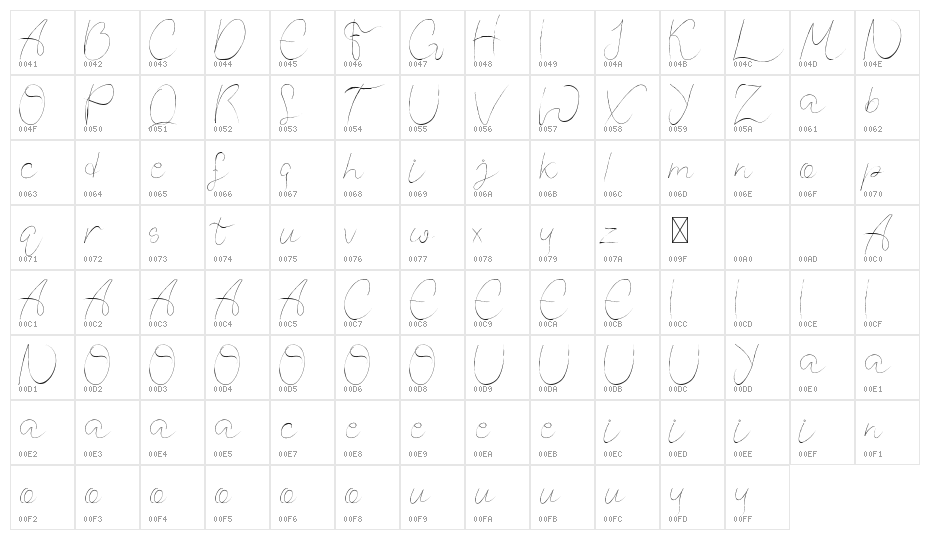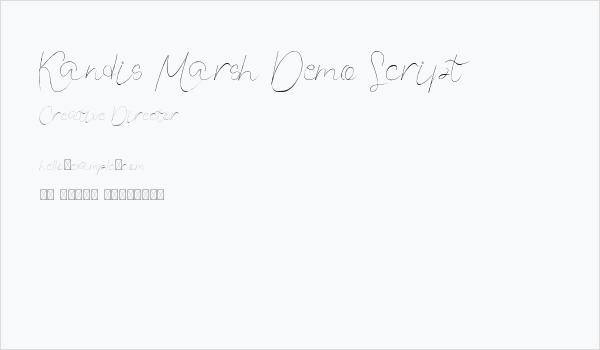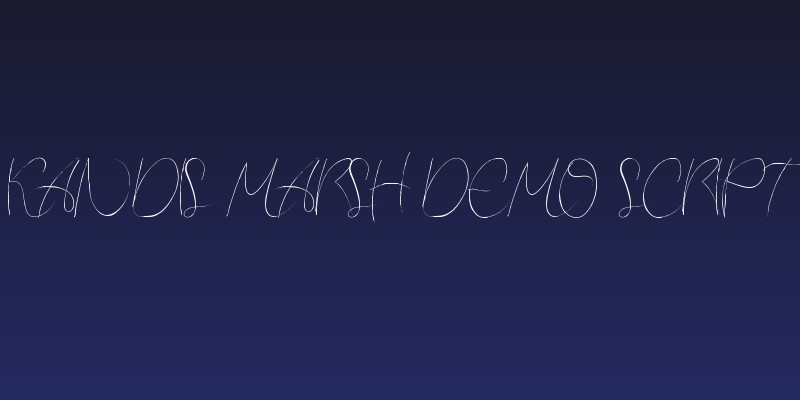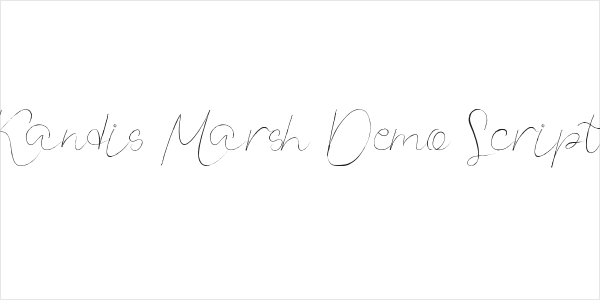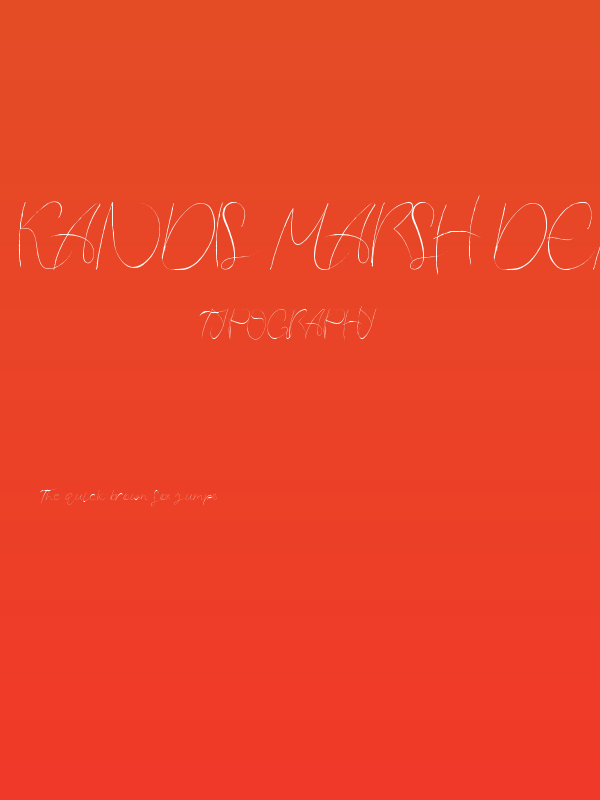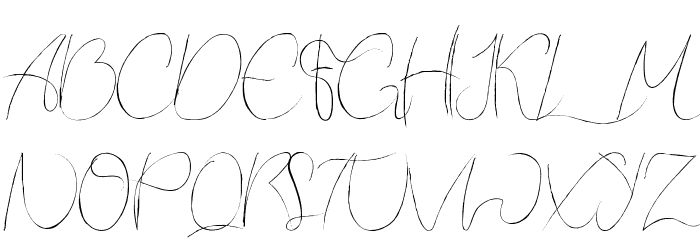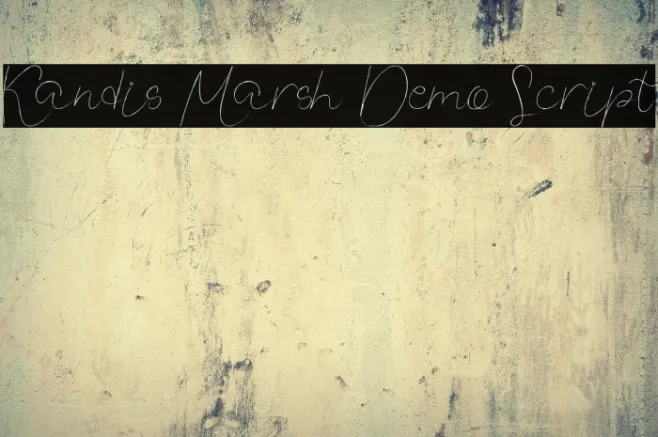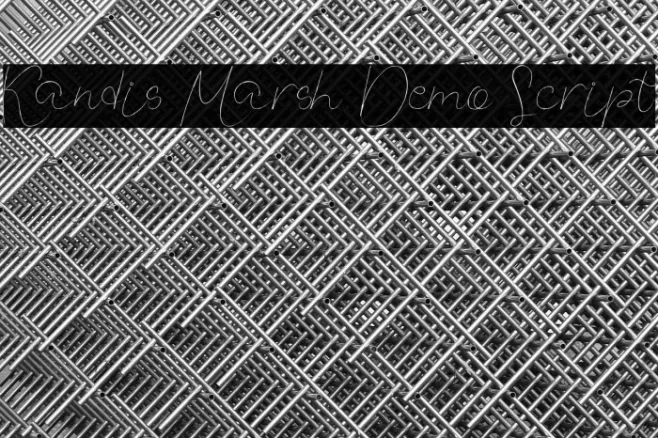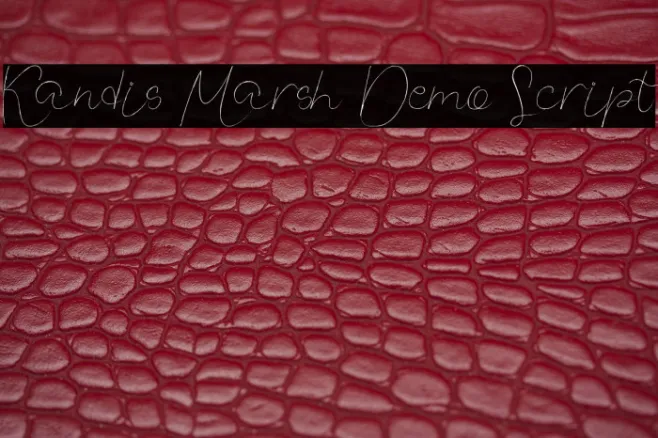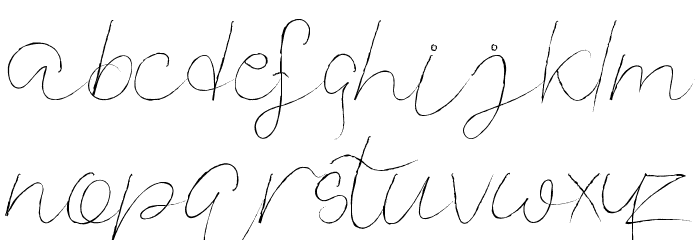
Kandis Marsh Demo Script Font
Kandis Marsh Demo Script Description
This font features a delicate and flowing script style, characterized by its thin, elegant strokes and a sense of fluidity. The letters are interconnected, giving it a handwritten appearance, which adds a personal and artistic touch. The uppercase letters are slightly larger and more pronounced, while the lowercase letters maintain a consistent flow. The overall design is airy and light, with a whimsical quality that makes it suitable for creative and expressive projects. The thin lines and gentle curves create a sense of movement and grace, making it ideal for applications where a touch of elegance is desired.
| Proposed Projects | Ideal for wedding invitations, greeting cards, personal branding, and artistic projects requiring a personal touch. |